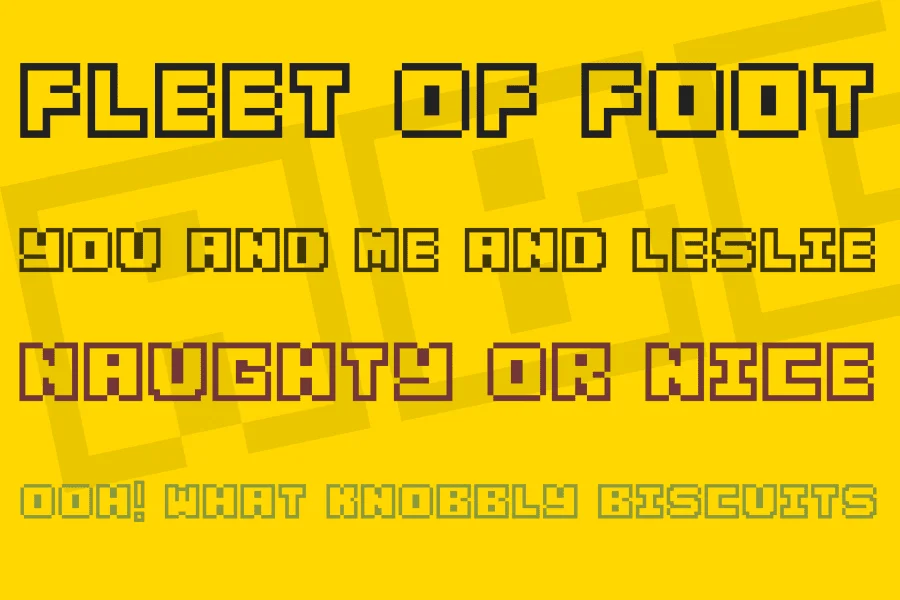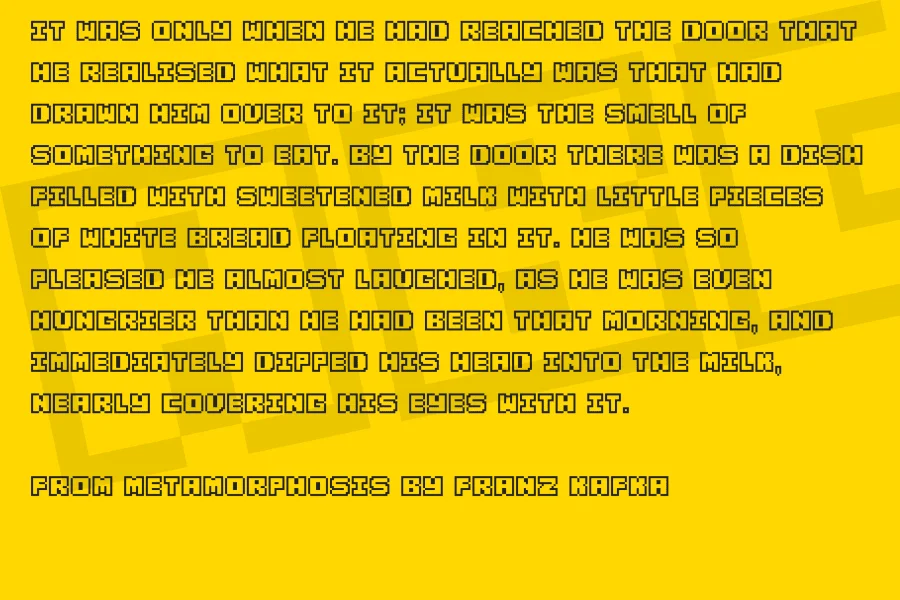
A retro-style pixelated outline font inspired by classic 8-bit and 16-bit games. Its clean geometric shapes, thick outline, and square corners make it a great choice for logos, titles, UI, posters, and indie games. The font is easy to read at large sizes and adds an arcade classic and digital nostalgia vibe to your designs.